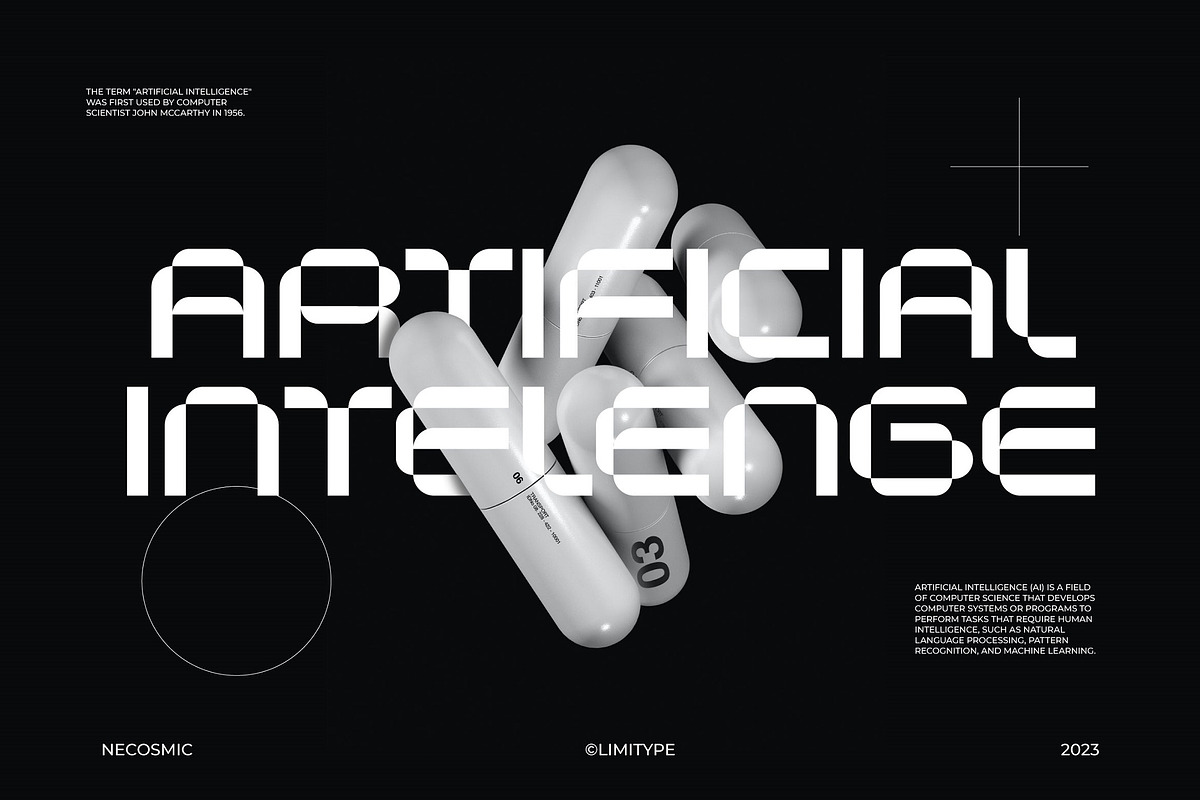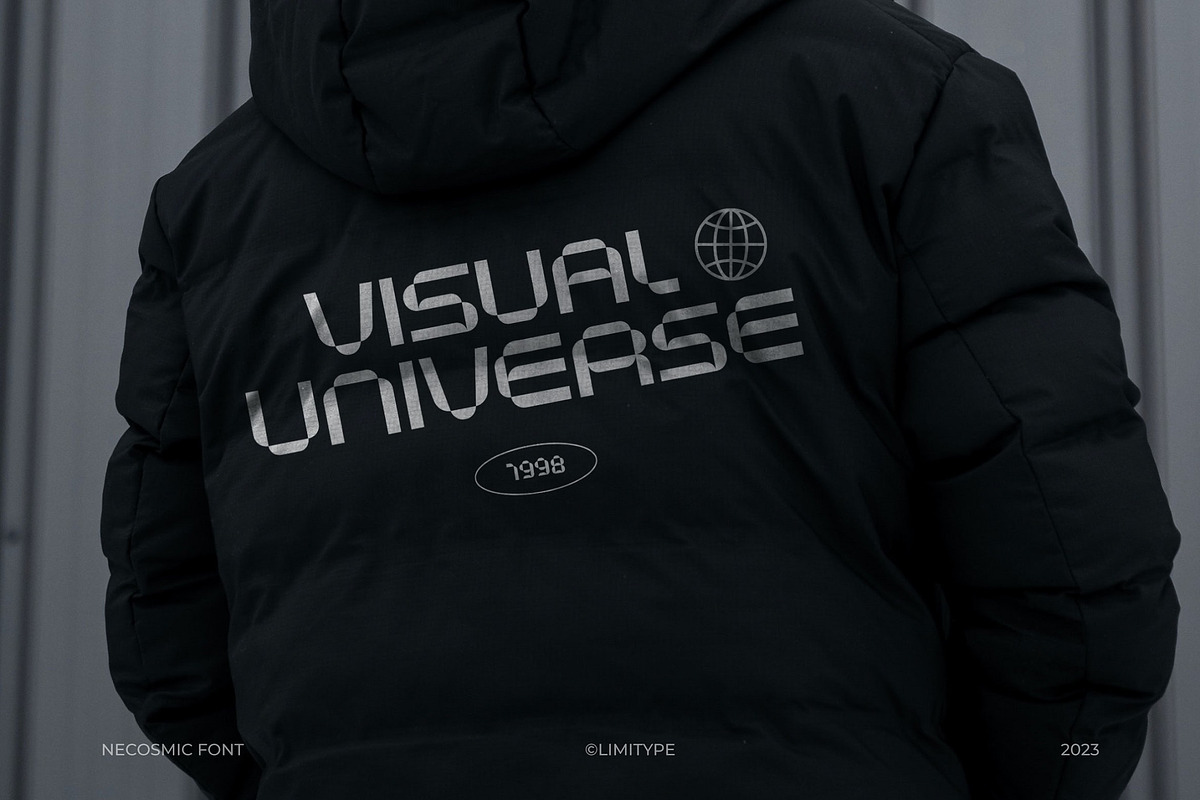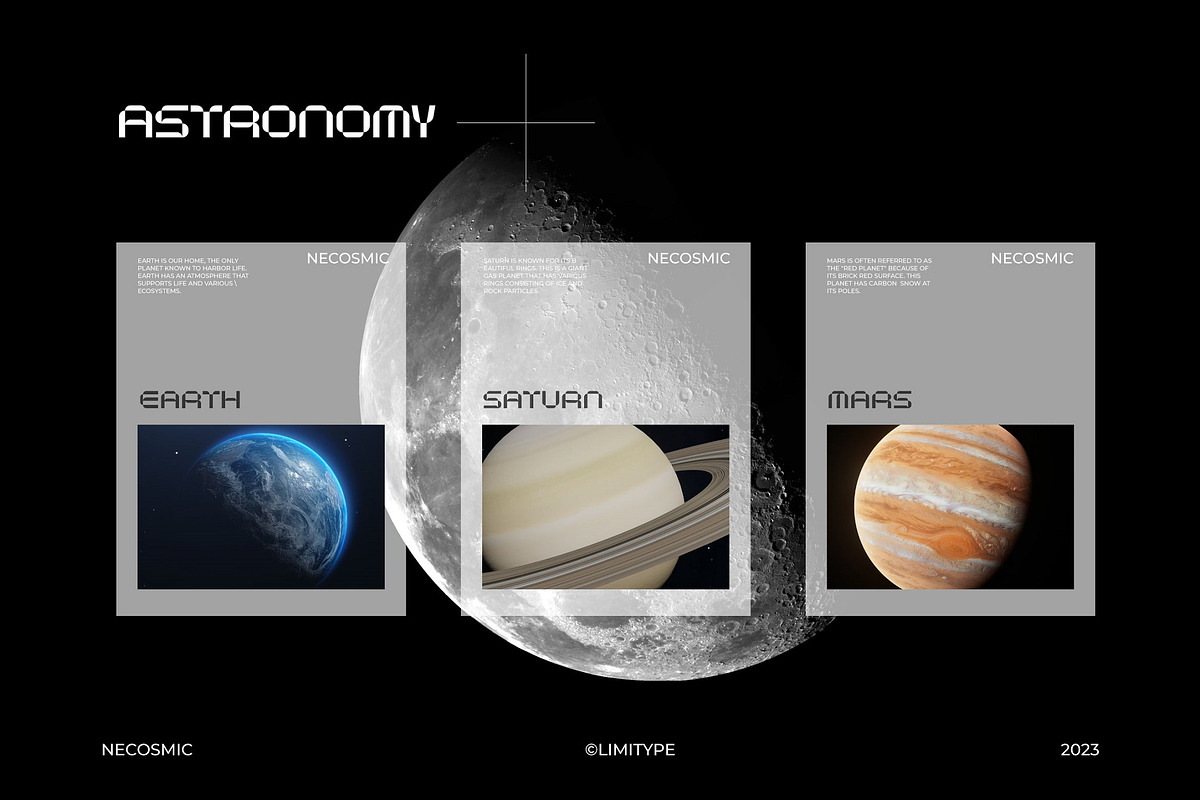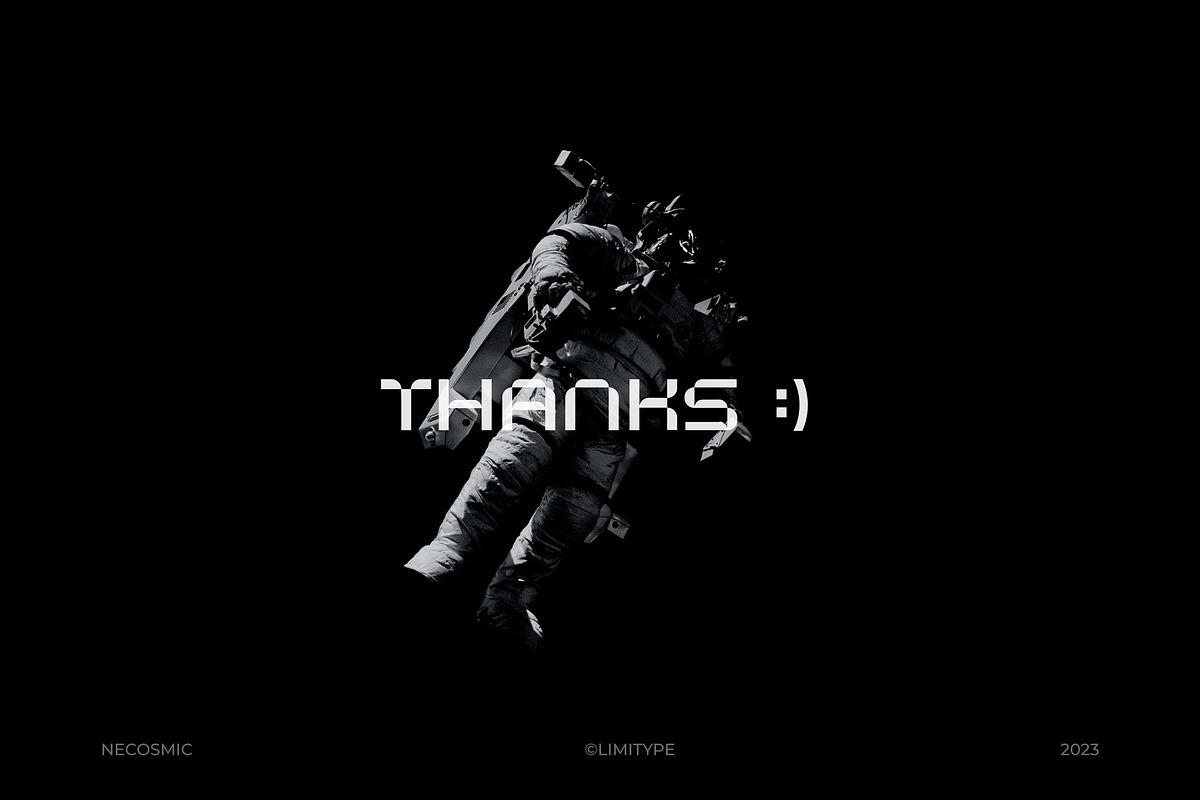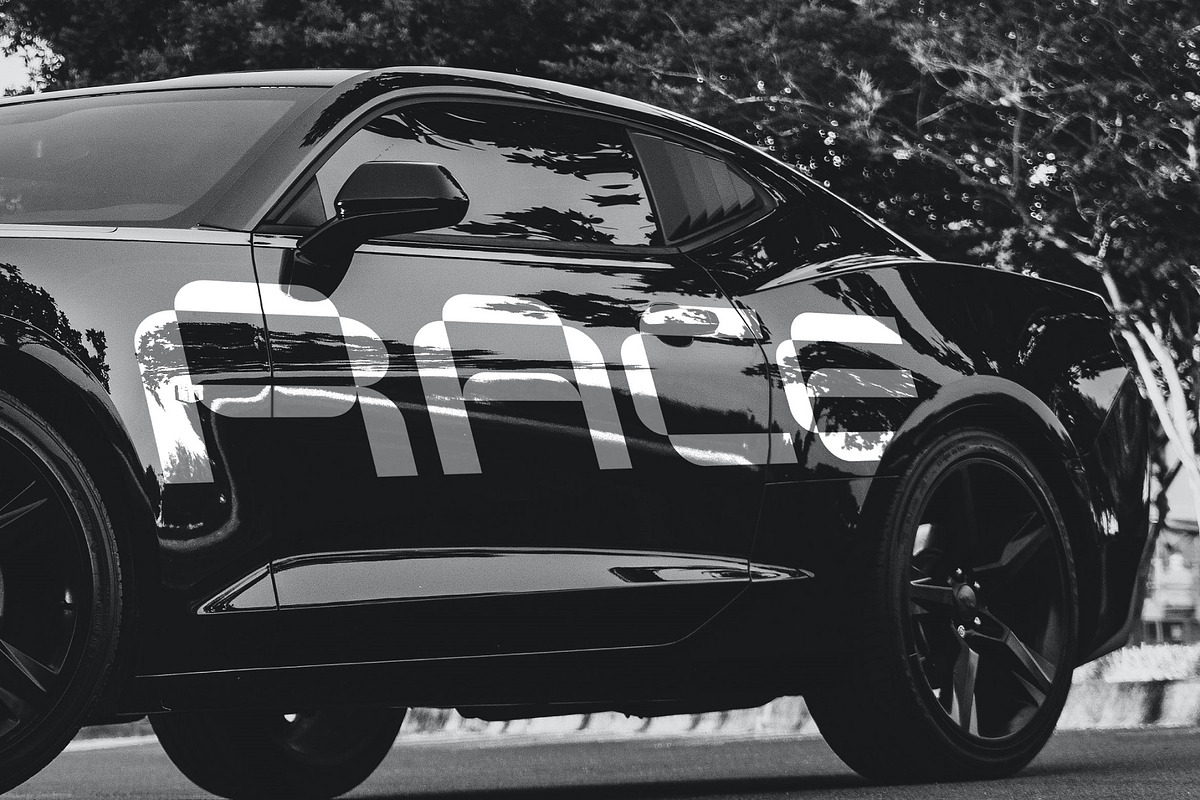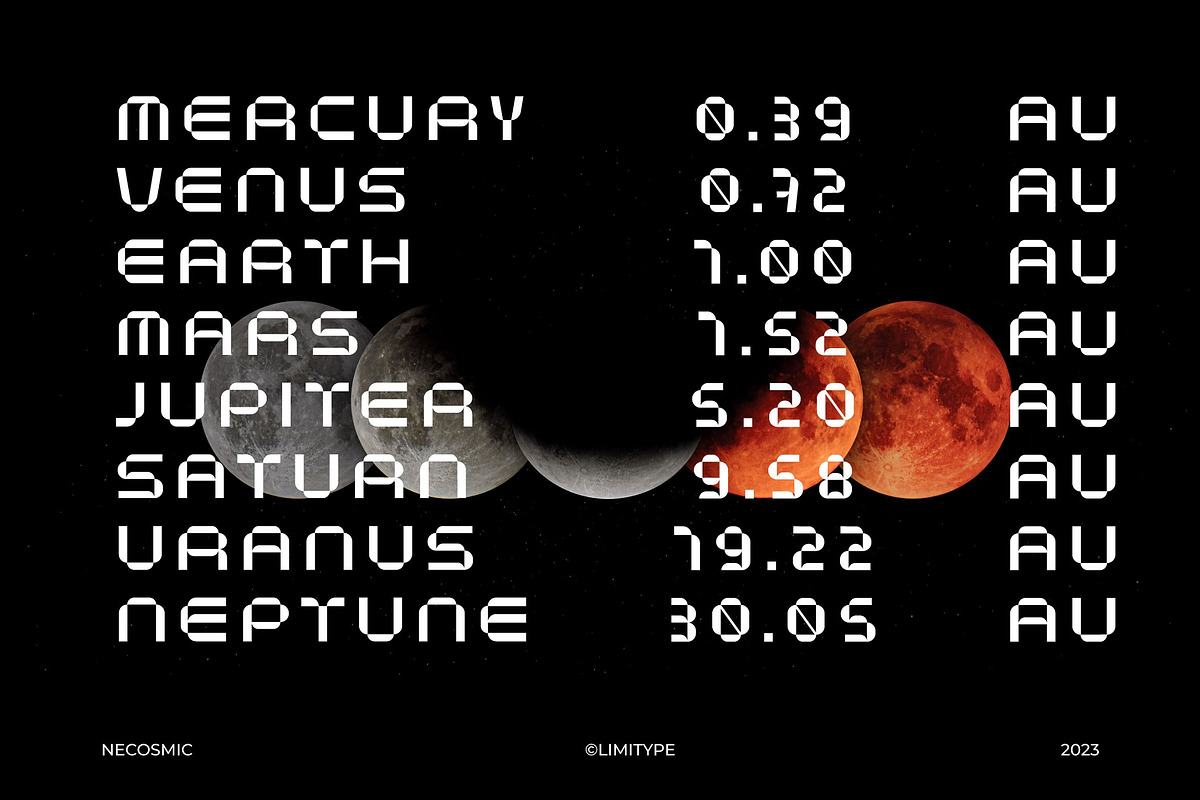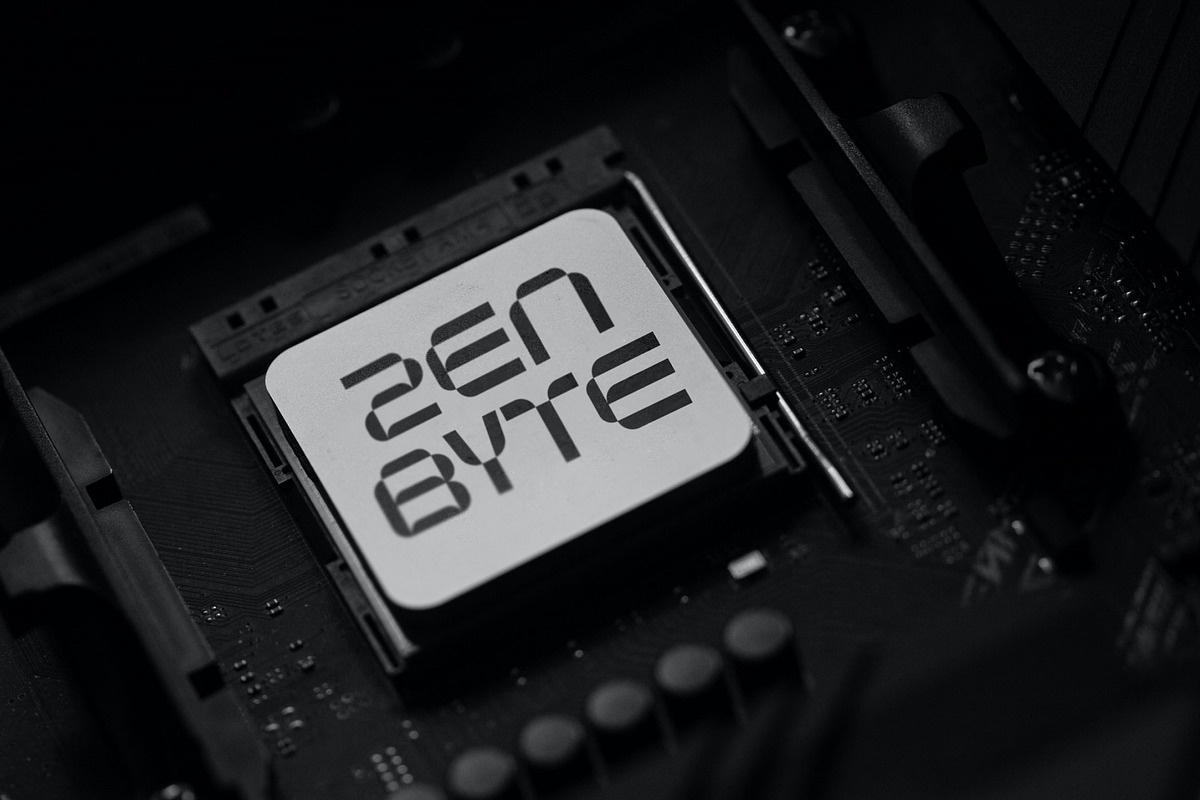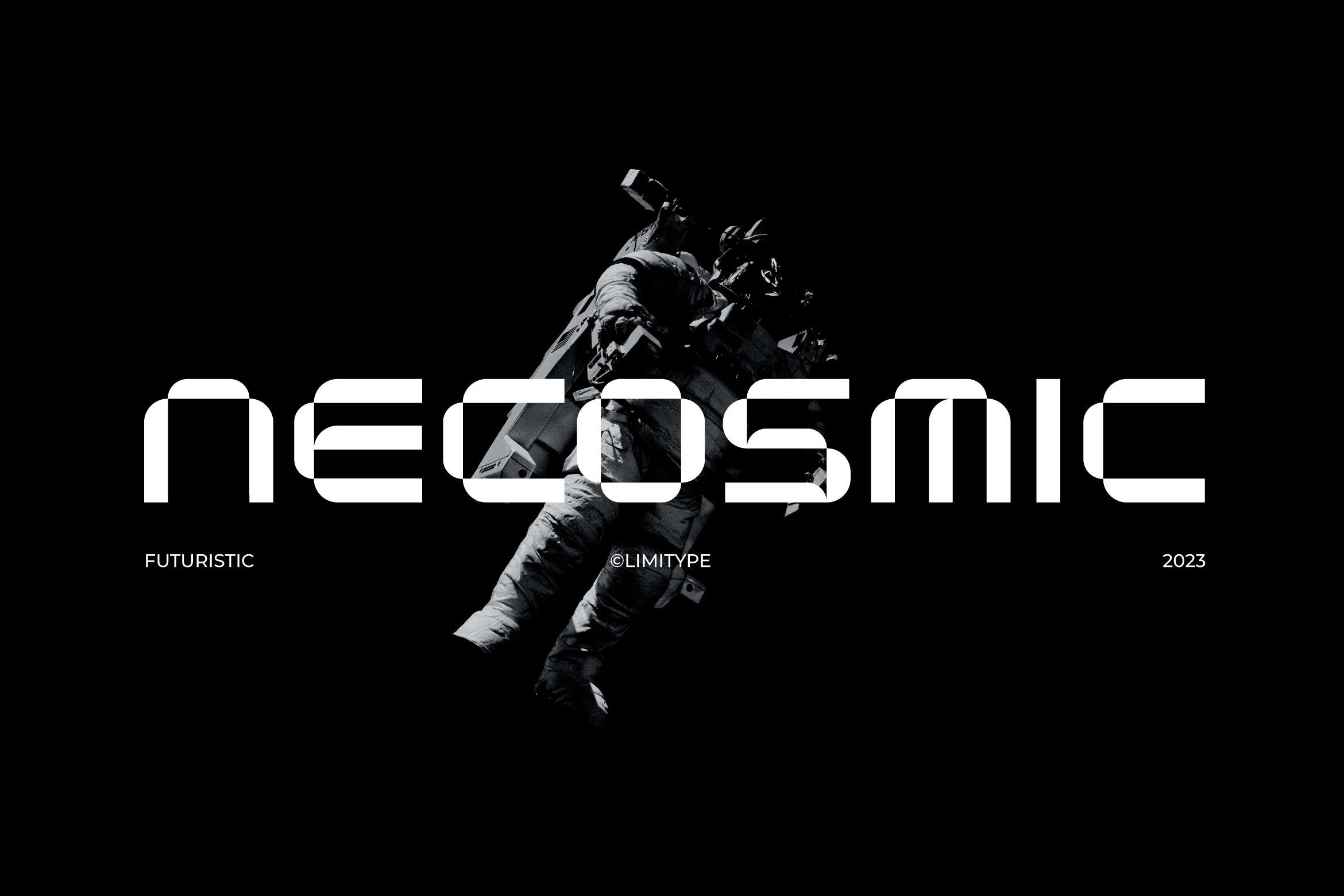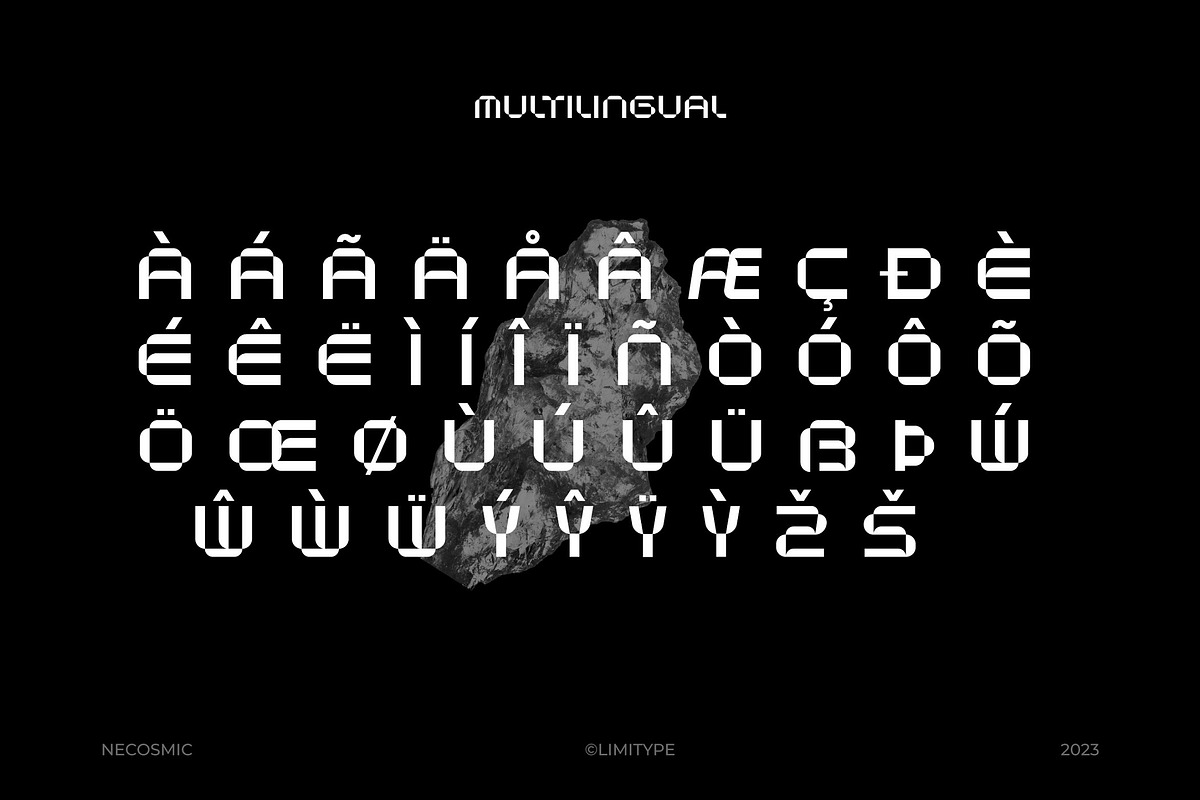
Necosmic - Futuristic Font
Elevate your design to the next level with Necosmic – a display font that radiates futuristic and modern style. Specifically designed to seamlessly integrate into technology, futuristic, and outer space themes, each character reflects innovation, creating an extraordinary impression in every design. Perfect your visual presentation with the sophistication of Necosmic – where progress meets inspiring typography.